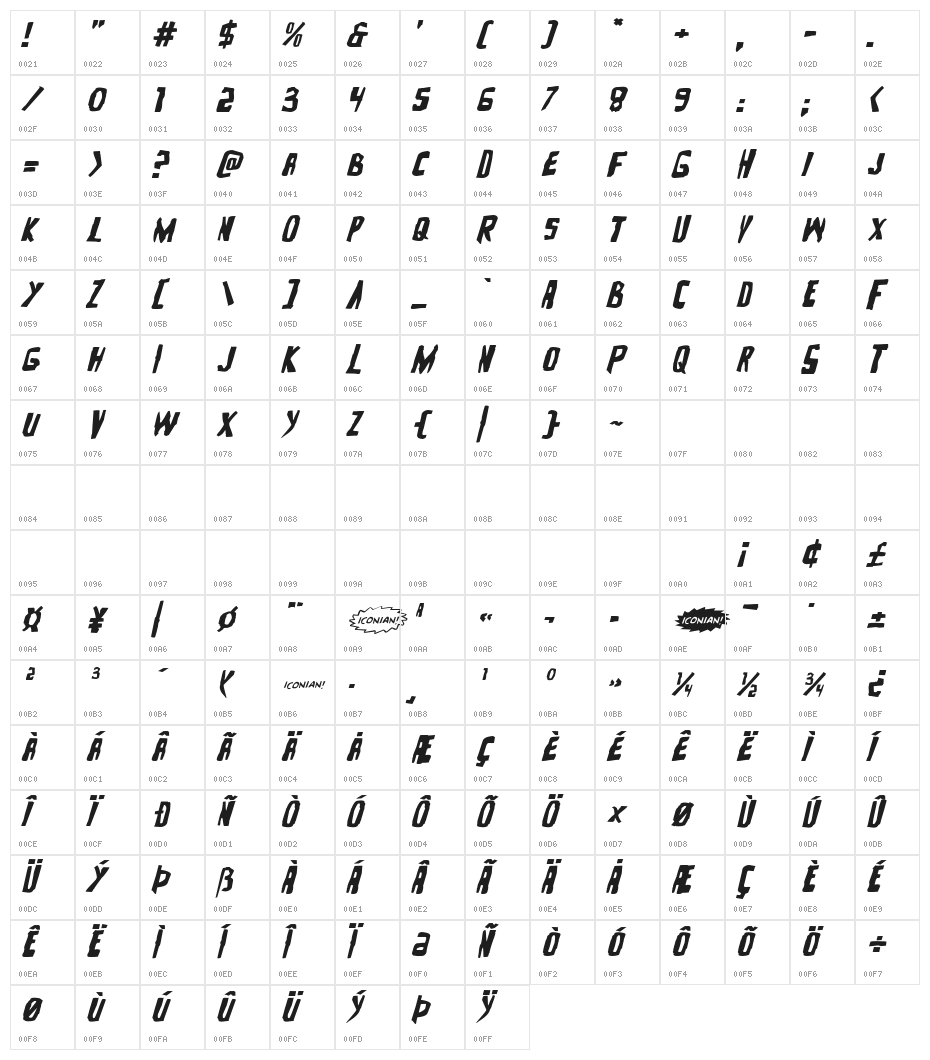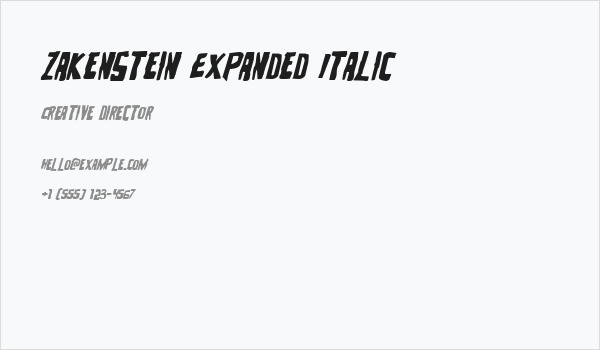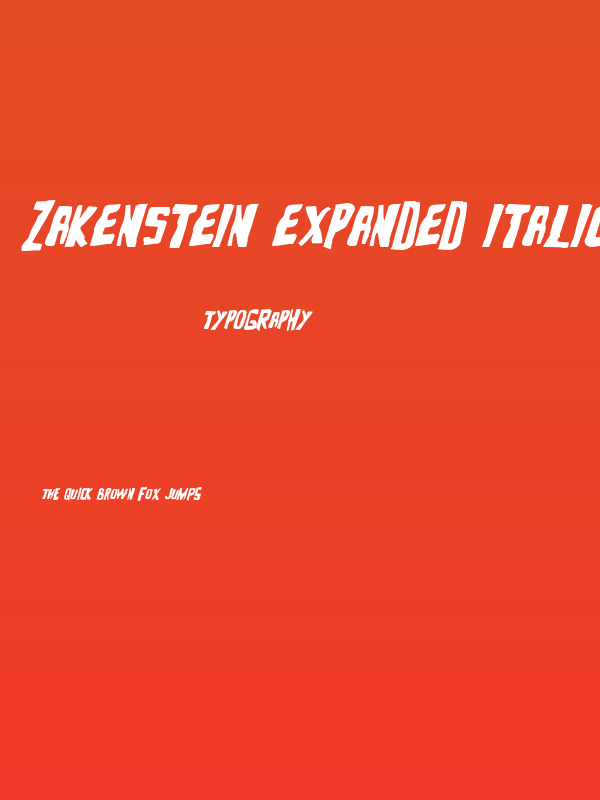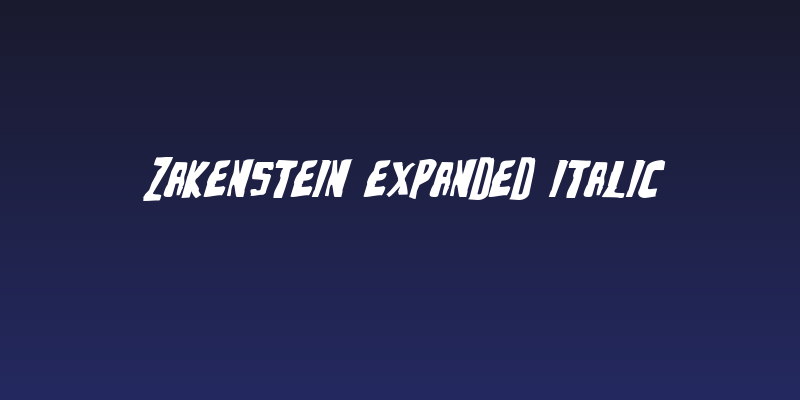
Zakenstein Expanded Italic Font
Zakenstein Expanded Italic Description
This font features a bold and dynamic style with a distinctly italicized slant, giving it a sense of motion and energy. The characters are expanded, providing a wide stance that enhances readability while maintaining a unique aesthetic. The strokes are thick and consistent, creating a strong visual impact. The design is modern and slightly aggressive, making it suitable for attention-grabbing headlines or branding that requires a bold statement. The font's angular cuts and sharp edges contribute to its contemporary and edgy feel.